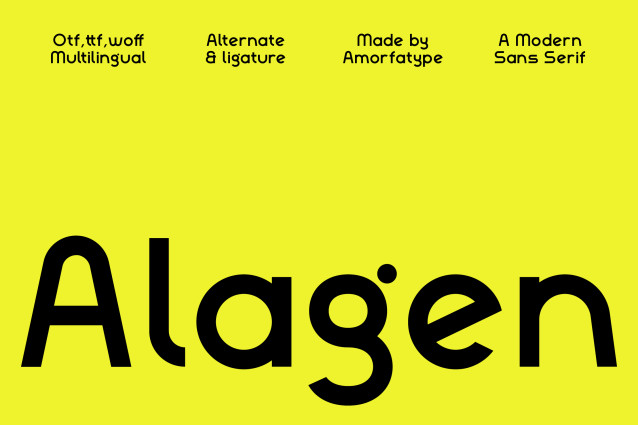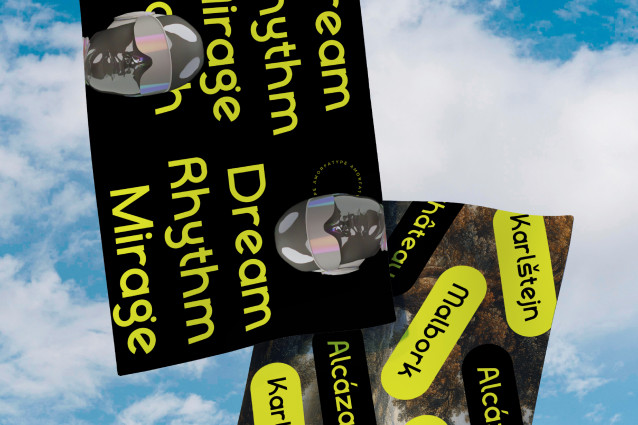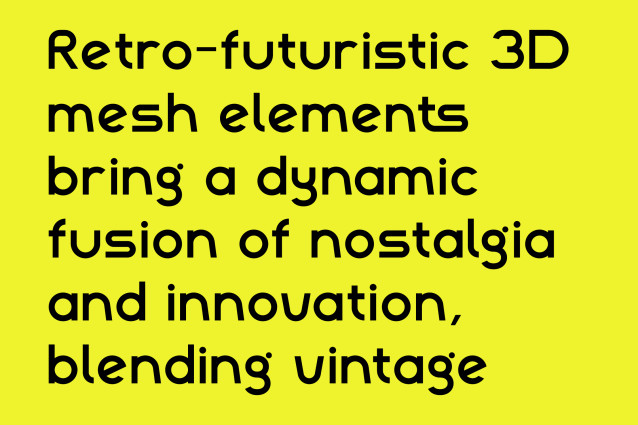
Alagen Sans Font
Alagen Sans Font is a clean and contemporary sans serif typeface designed to bring a sense of modern simplicity and professional clarity to your design work. With its precise geometry, balanced letterforms, and smooth curves, Alagen is ideal for projects that require a sleek, minimalistic aesthetic without sacrificing legibility or style.
Perfect for branding, editorial design, website interfaces, logos, and corporate materials, Alagen’s versatility shines across both print and digital media. Its clean appearance and consistent rhythm make it highly readable, while its modern elegance adds a polished finish to any layout. Whether used in bold headers or refined body text, Alagen adapts beautifully to your creative vision.